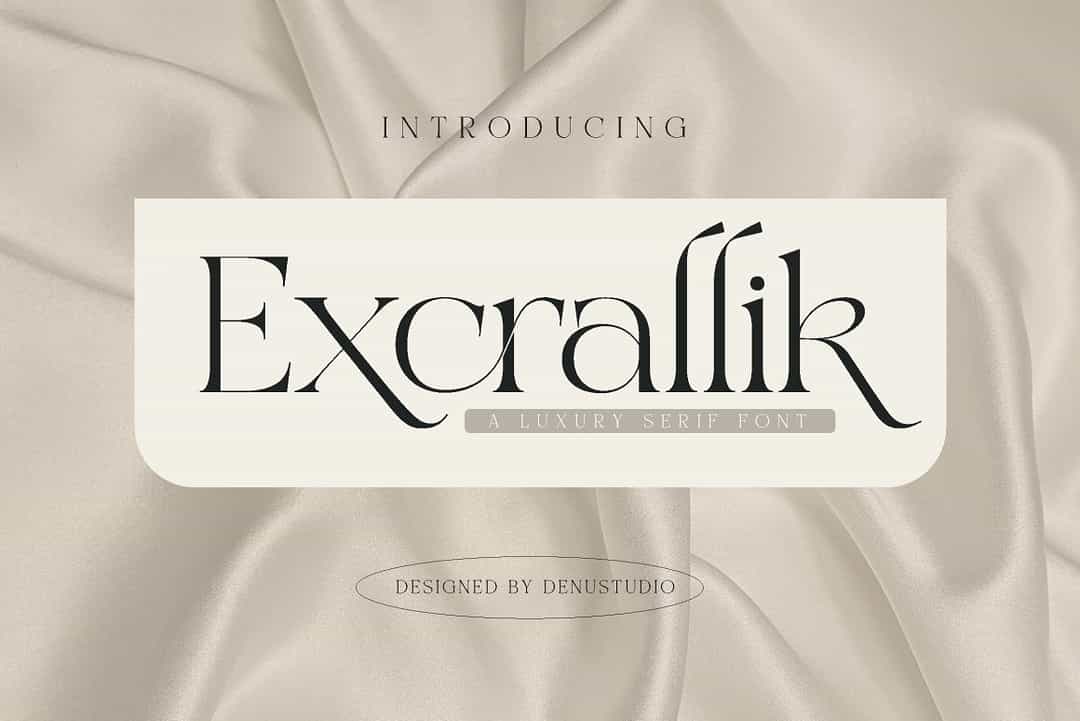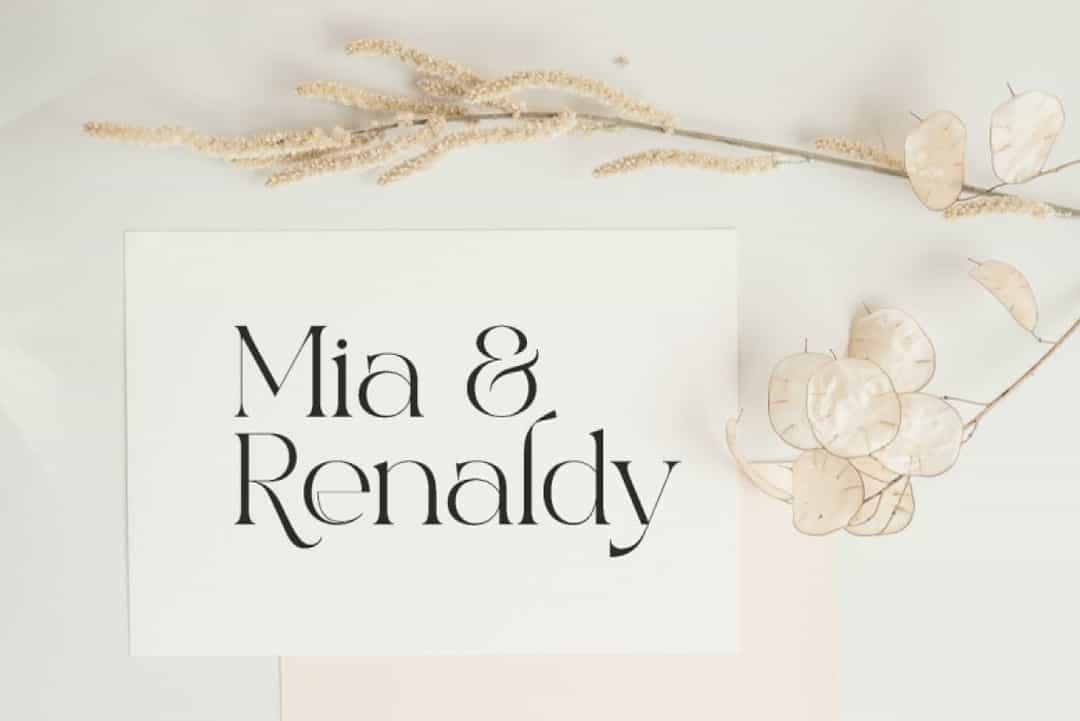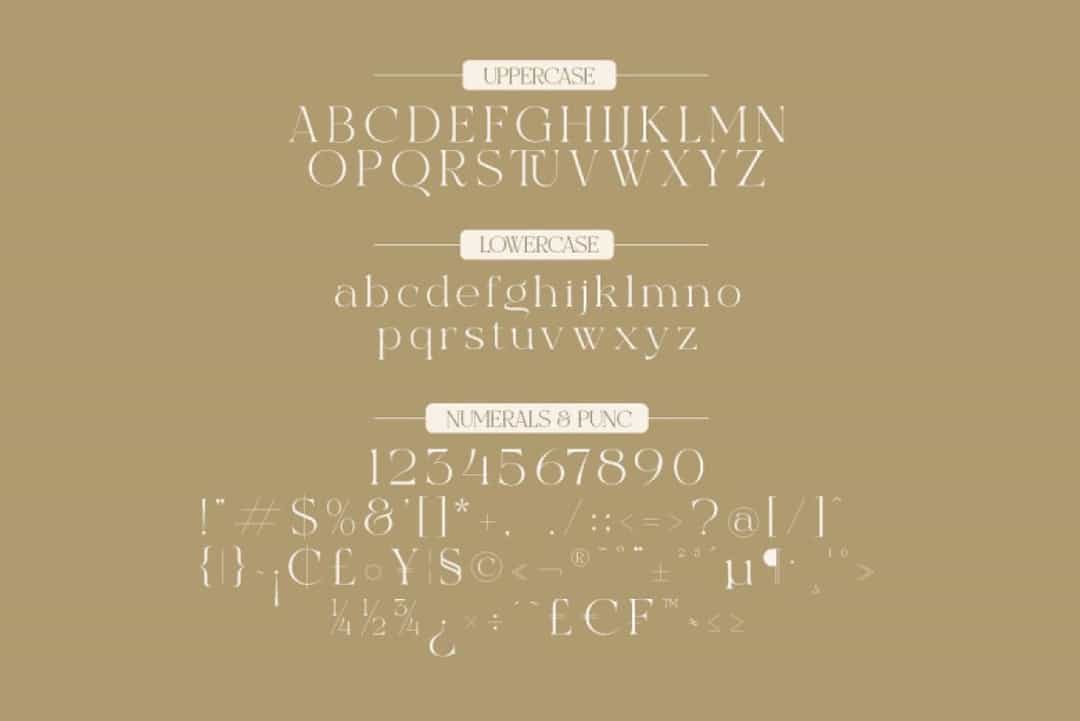
DenuStudio has brought us Excrallik Modern Serif Font – a stylish serif font with classic and modern elements, creating an eye-catching design and modern appearance. Perfect for creating classy logos, movie titles, book titles, clothing brands clothing magazines lettering quotes or anything else in between.